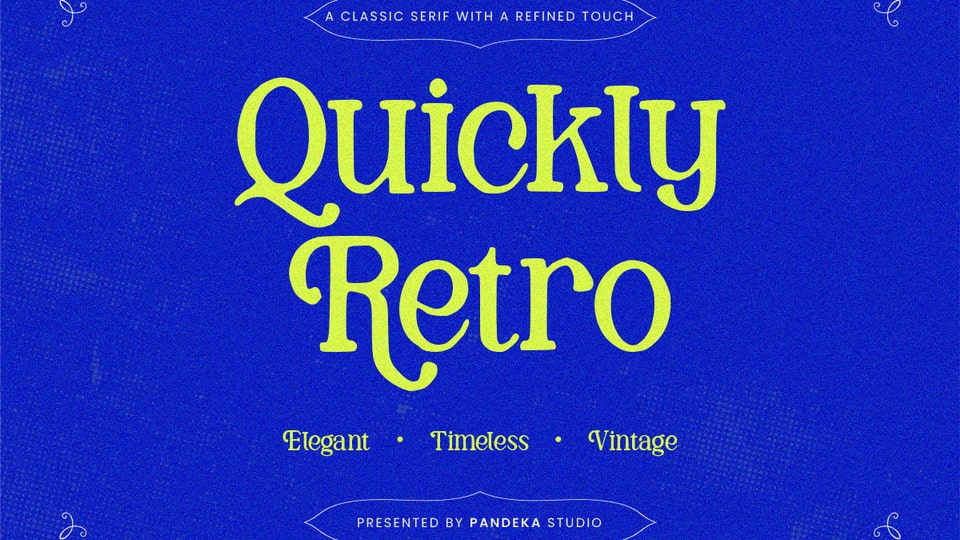
Download Quickly Retro font, a vintage-inspired serif typeface that blends timeless elegance with a retro aesthetic, perfect for classic branding, editorial designs.